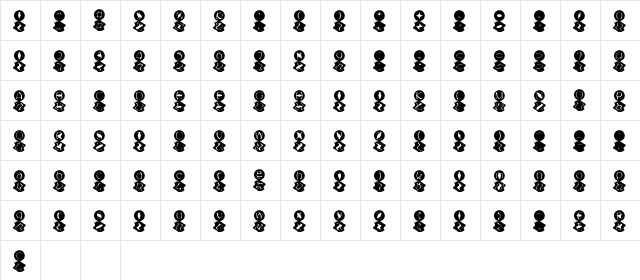
mashy Bong & Gossip mashy Bong & Gossip
Design Context for mashy Bong & Gossip Typeface
mashy Bong & Gossip is a composed and adaptable typeface that performs quietly and consistently across a wide range of design contexts.